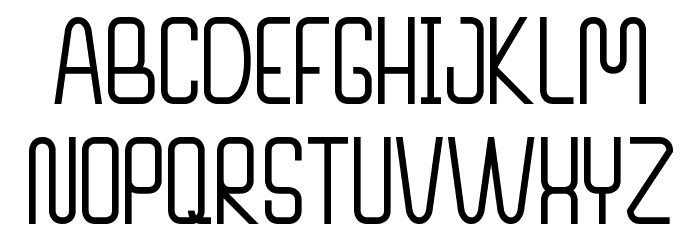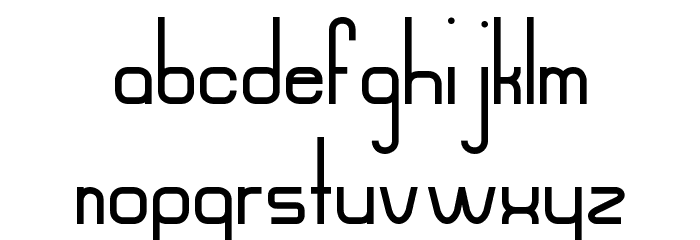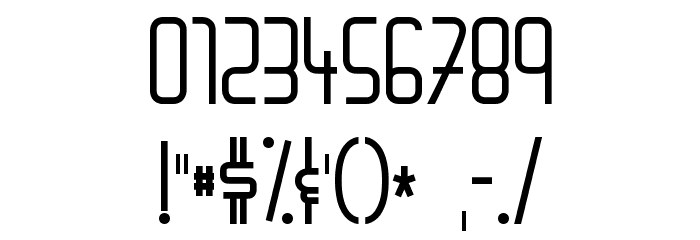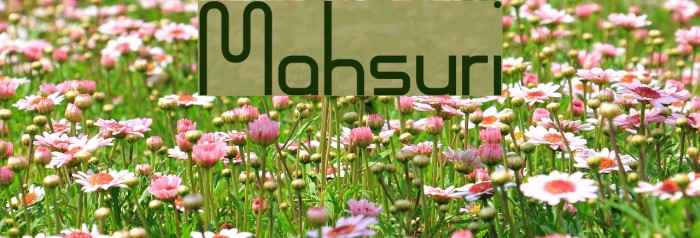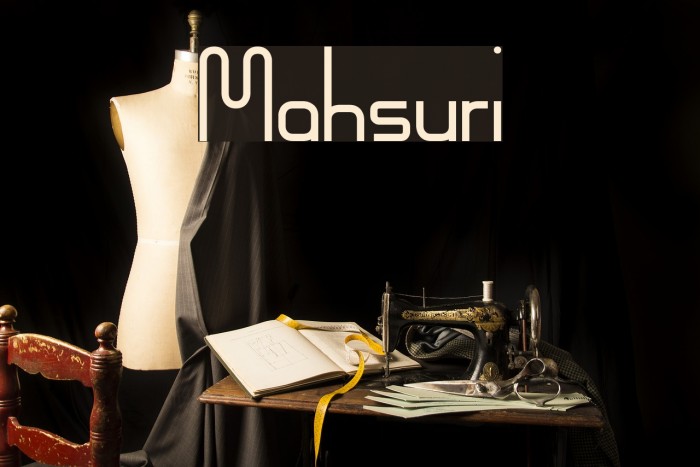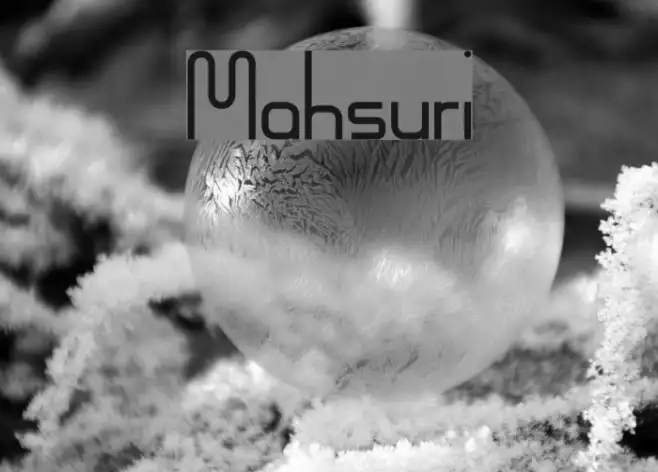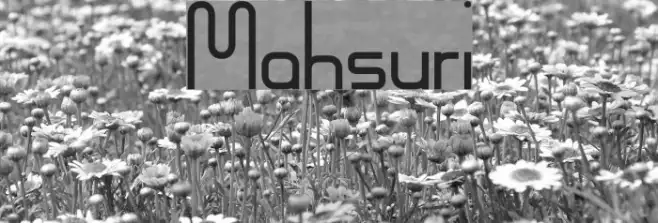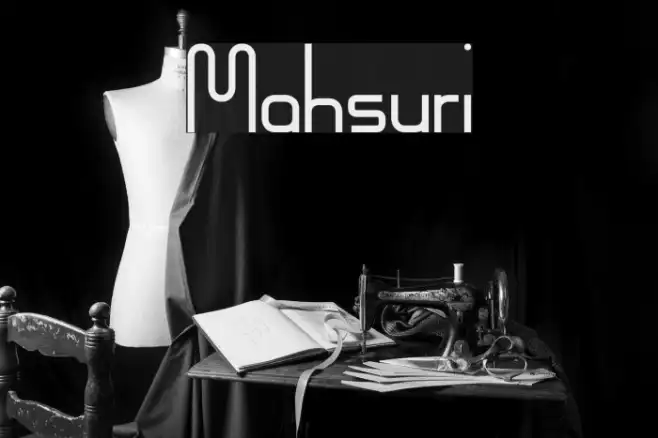
Mahsuri Font
This font features a unique and modern design with elongated, rounded characters that give it a sleek and futuristic appearance. The uppercase letters are tall and narrow, while the lowercase letters maintain a consistent height, creating a harmonious balance. The numerals are distinct and easy to read, with a geometric style that complements the overall aesthetic. Special characters are well-integrated, maintaining the font's cohesive look. The clean lines and minimalistic approach make it suitable for contemporary design projects.
A modern, sleek font with elongated, rounded characters and a futuristic feel.
- Proposed Projects: Ideal for tech branding, modern advertising, futuristic posters, and digital interfaces.
- Use Case: Headlines, Logos, Digital interfaces